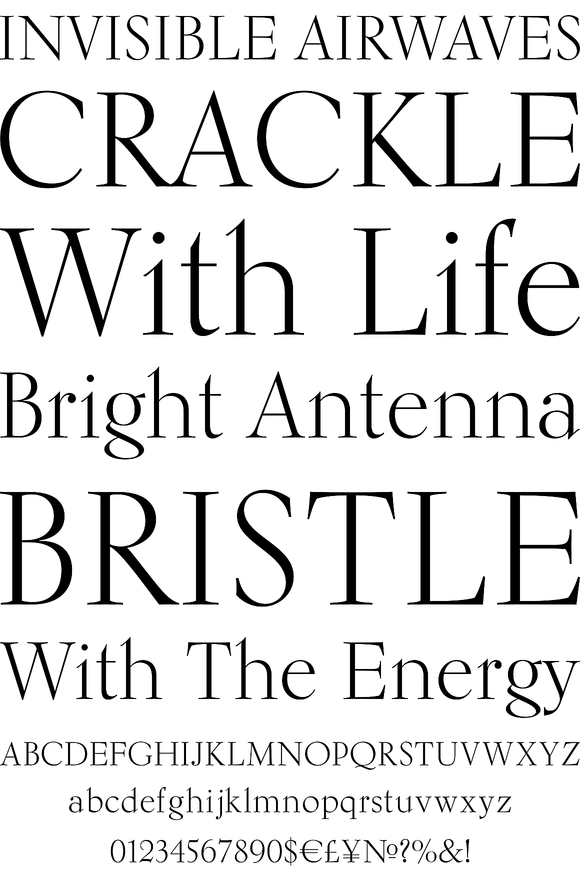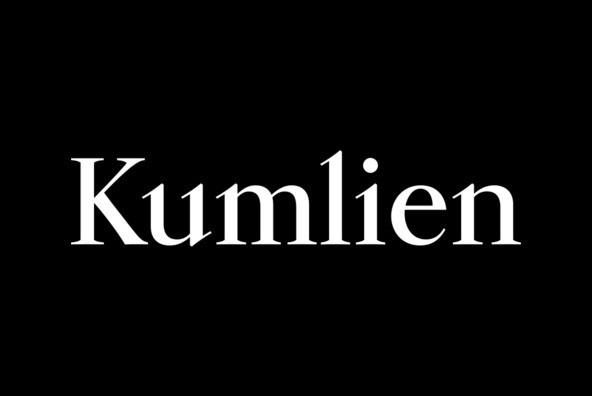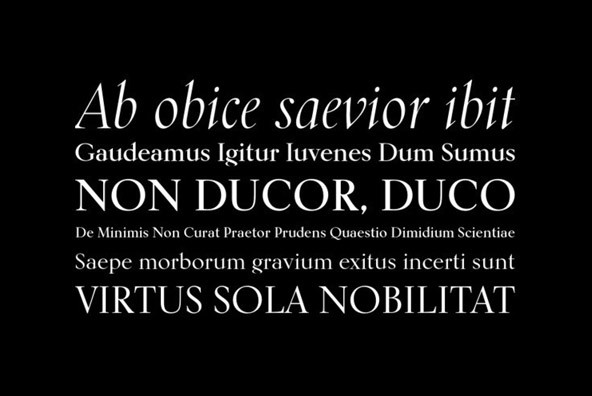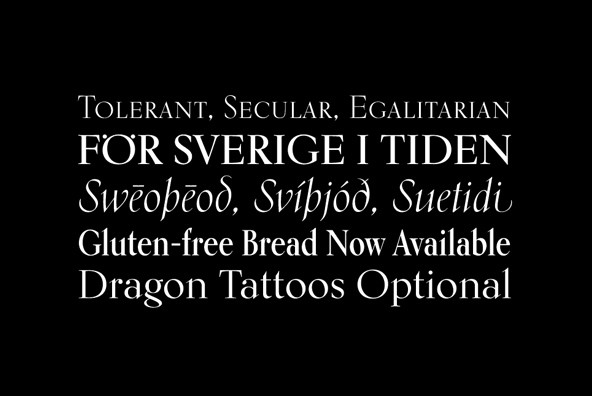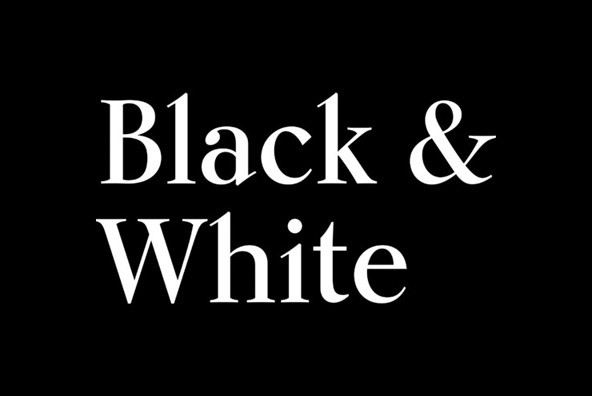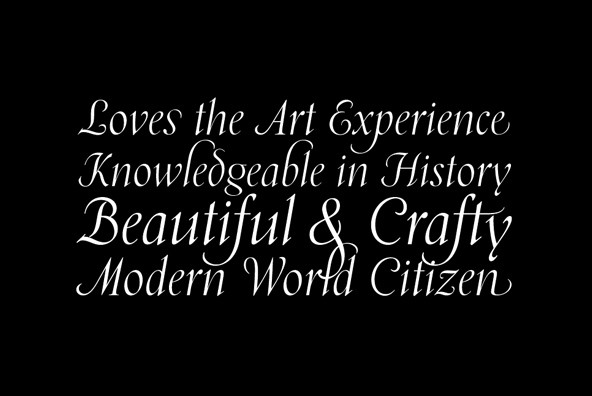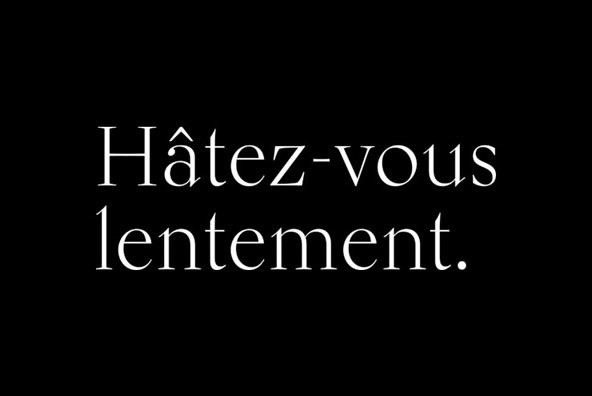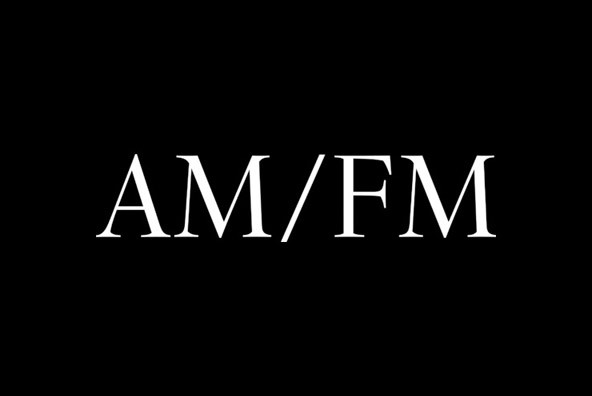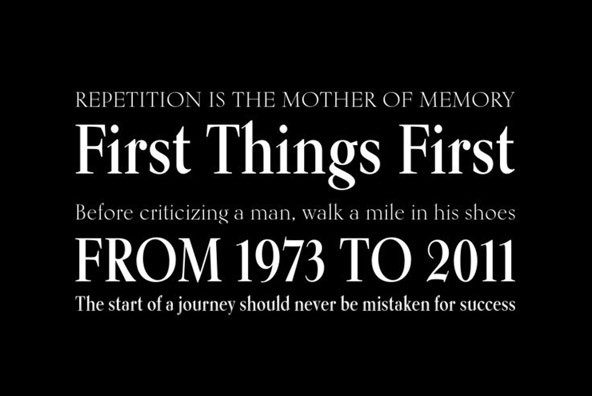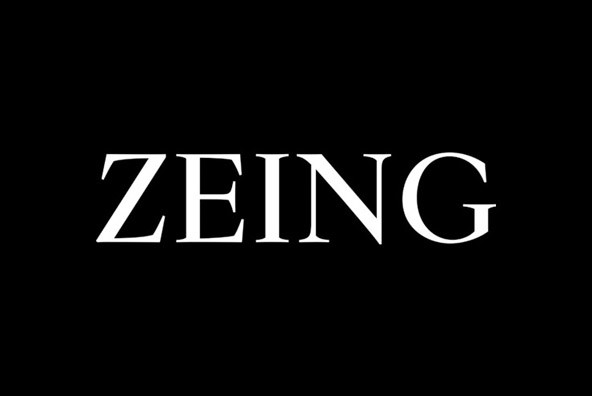
Kumlien Pro
Foundry: Canada Type
Kumlien Pro is the revival and expansion of a typeface designed in 1943 by Akke Kumlien, the famed Swedish book designer, poet, author, painter and arts materials expert. At the time, being the first major Swedish typeface to be designed in over a century, it became an instant hit with publishing houses in Sweden. To this very day it remains revered as one of very few historic and original Swedish typefaces.
Transitional in overall appearance and idiosyncractic in detail, Kumlien Pro draws on the oldstyle theme but also makes very good use of the 1930s and 1940s European deco aesthetic in its upright weights, and uses a rare calligraphic sharpness/roundness for its stunningly beautiful, almost postmodern italic.
The original metal typeface came in only roman, bold and italic variations. This exclusive digitization introduces a medium weight, a condensed version, small caps and alternates in all upright styles, and plenty of swashes, ending forms and alternates in the italic. Kumlien Pro also comes with a extra-large character set, with over 610 characters per font, to include support for an extended range of Latin-based languages. All Pro fonts ship with their non-Pro TTF counterparts, for those who use programs that do not support OpenType features.